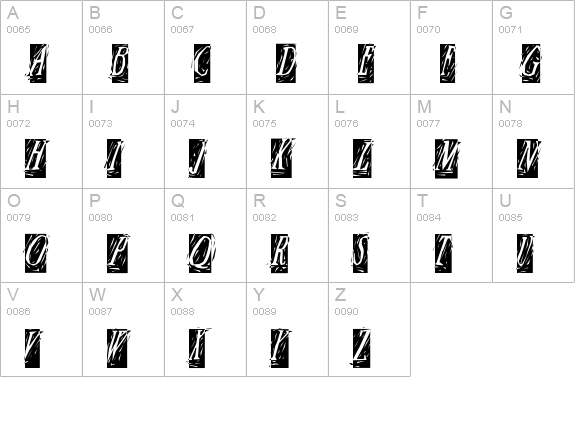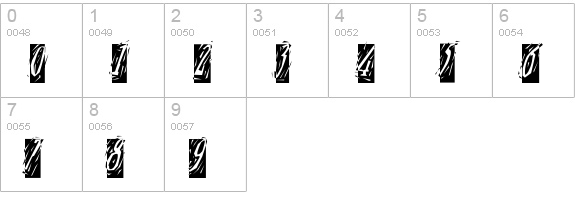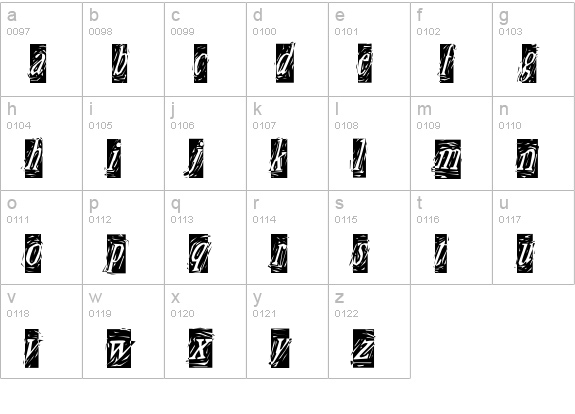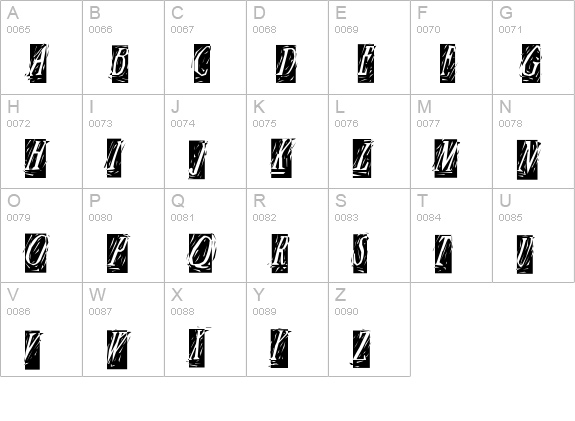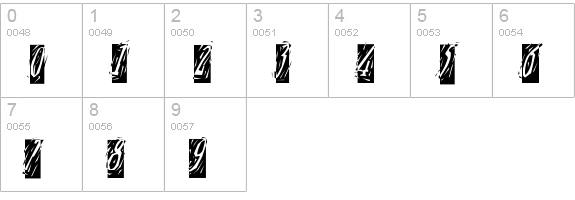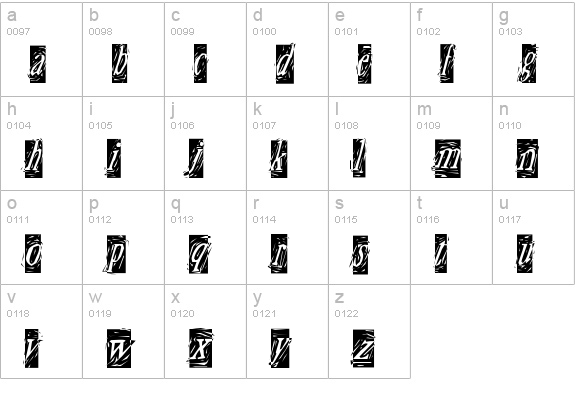
Craft-Reversed Font Details
Craft-Reversed font is a unique and versatile typeface that brings a modern twist to traditional craftsmanship. With its elegant and stylish design, Craft-Reversed is perfect for adding a touch of sophistication to your projects. This font features a reversed style that adds a creative and eye-catching element to any design. The best part about Craft-Reversed font is that it is completely free to download at FontsMarket.com. Whether you're working on a branding project, logo design, or any other creative endeavor, Craft-Reversed font is sure to make a statement. Its clean lines and sleek curves will captivate your audience and elevate your design to the next level. Don't miss out on the opportunity to enhance your projects with the stunning Craft-Reversed font. Download it for free today at FontsMarket.com and let your creativity shine!